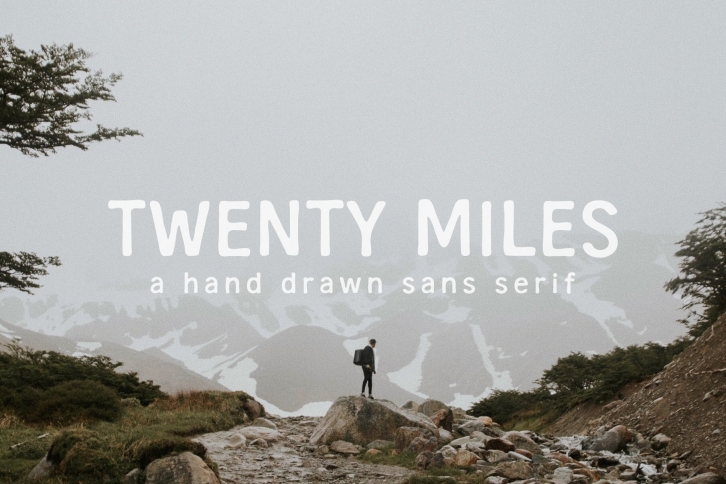
Twenty Miles is a beautiful font that was designed by MoonLake. It's a great choice for designers and creatives who need such a font. It was released on October 17, 2021 and the file size is 18.63 MB. Twenty Miles may give a more youthful, expressive and casual look to your project. It is a very beautiful, refined, elegant, and high-quality font.